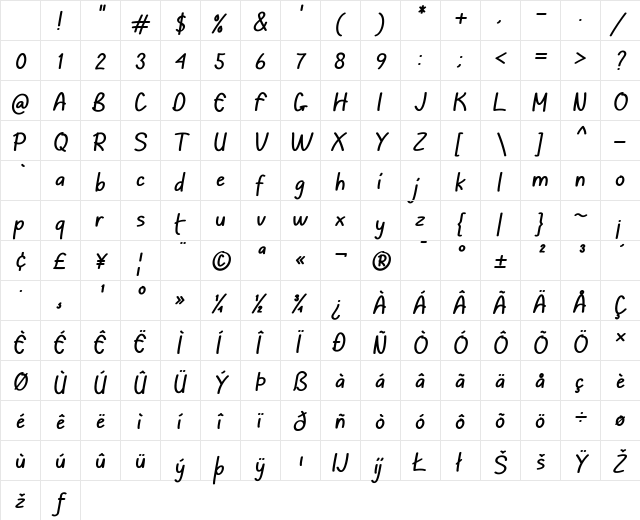
Hambu Radul is a composed and adaptable typeface that performs quietly and consistently across a wide range of design contexts. The slanted form adds forward momentum and visual energy.
Pro Tip: Use Hambu Radul for emphasis, pull quotes, and subheadings where its slanted energy can add rhythm to the layout.